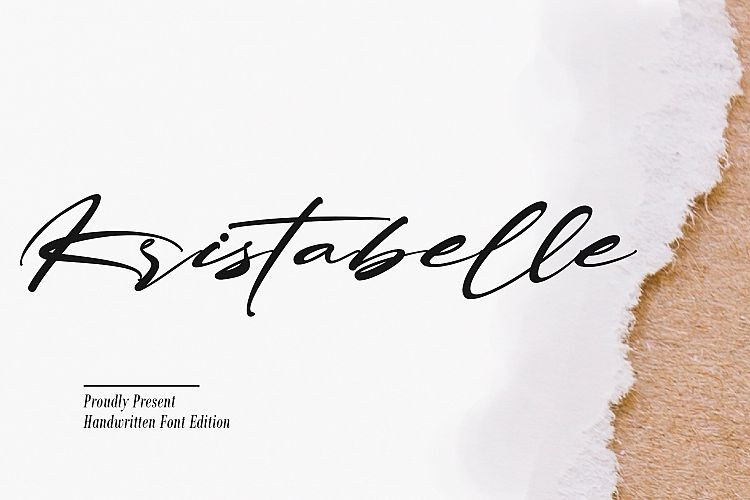
Kristabelle Script Font
Hello font lover !!! Continuing to be a script product from thomasaradea designer. This is a handwriting font with unique, casual and beautiful style. Introducing Kristabelle Font. It’s elegantl and handwriting font.
Kristabelle Script is perfect for logo, invitation, stationery, wedding designs, social media posts, advertisements, product packaging, product designs, label, photography, watermark, special events or anything.